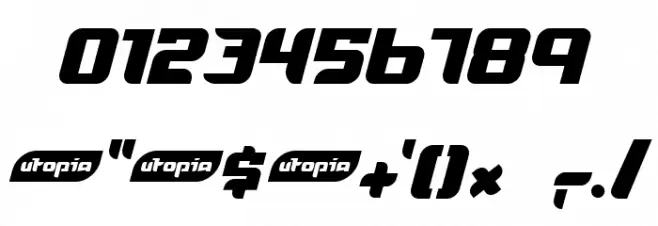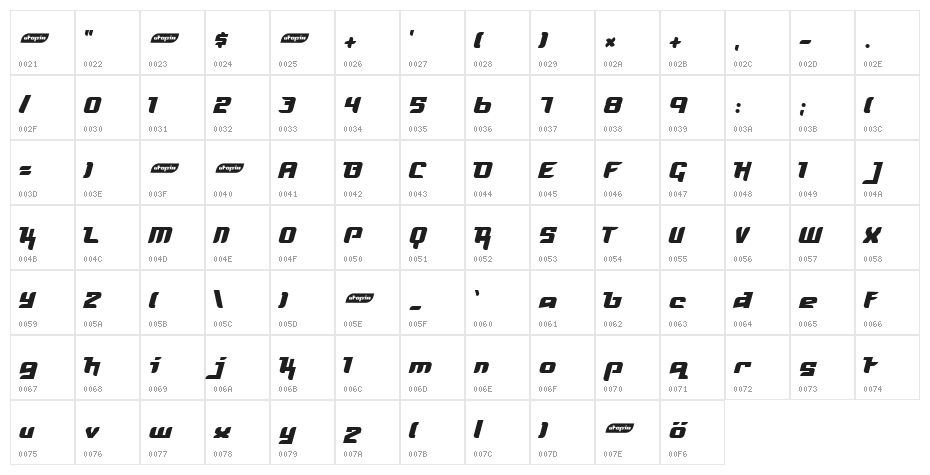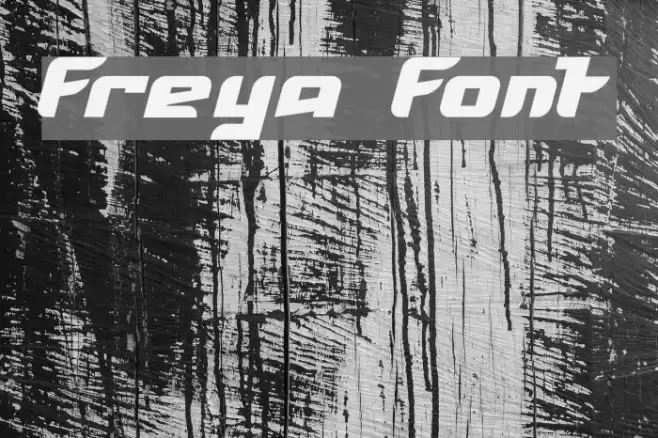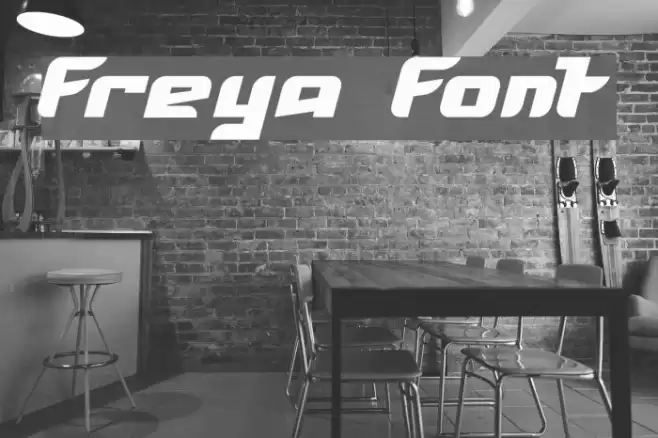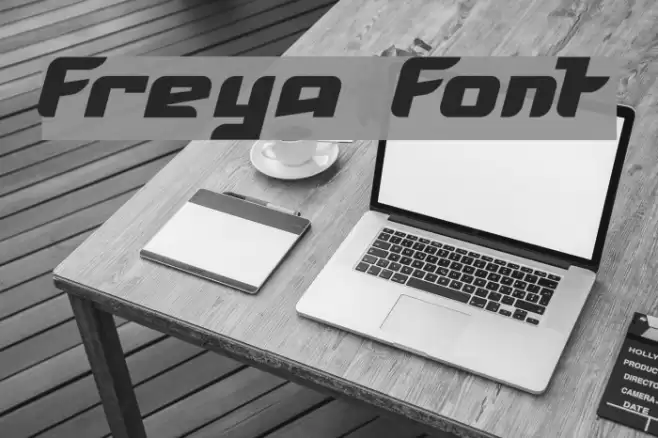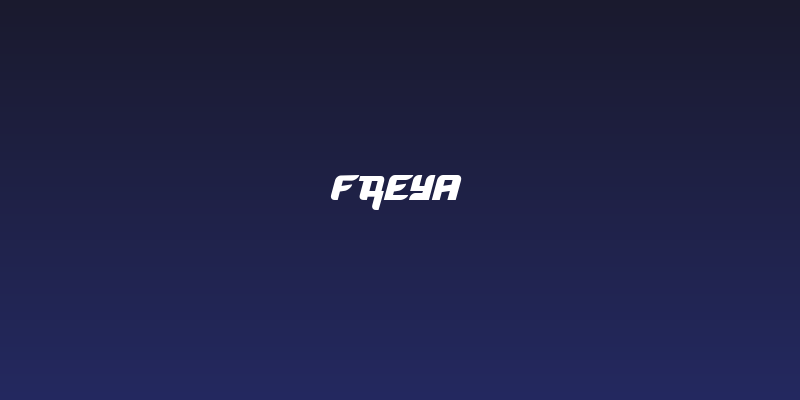
Freya Font
Freya Description
This font features a bold, dynamic style with a futuristic and angular design. The characters are slightly slanted, giving a sense of motion and energy. The uppercase and lowercase letters maintain a consistent geometric structure, with sharp edges and a uniform stroke width. The numbers and special characters follow the same design principles, ensuring a cohesive look across all glyphs. This font is ideal for projects that require a modern and edgy aesthetic, such as technology branding, sports team logos, or video game titles.
| Proposed Projects | Ideal for technology branding, sports team logos, video game titles, and dynamic advertising campaigns. |